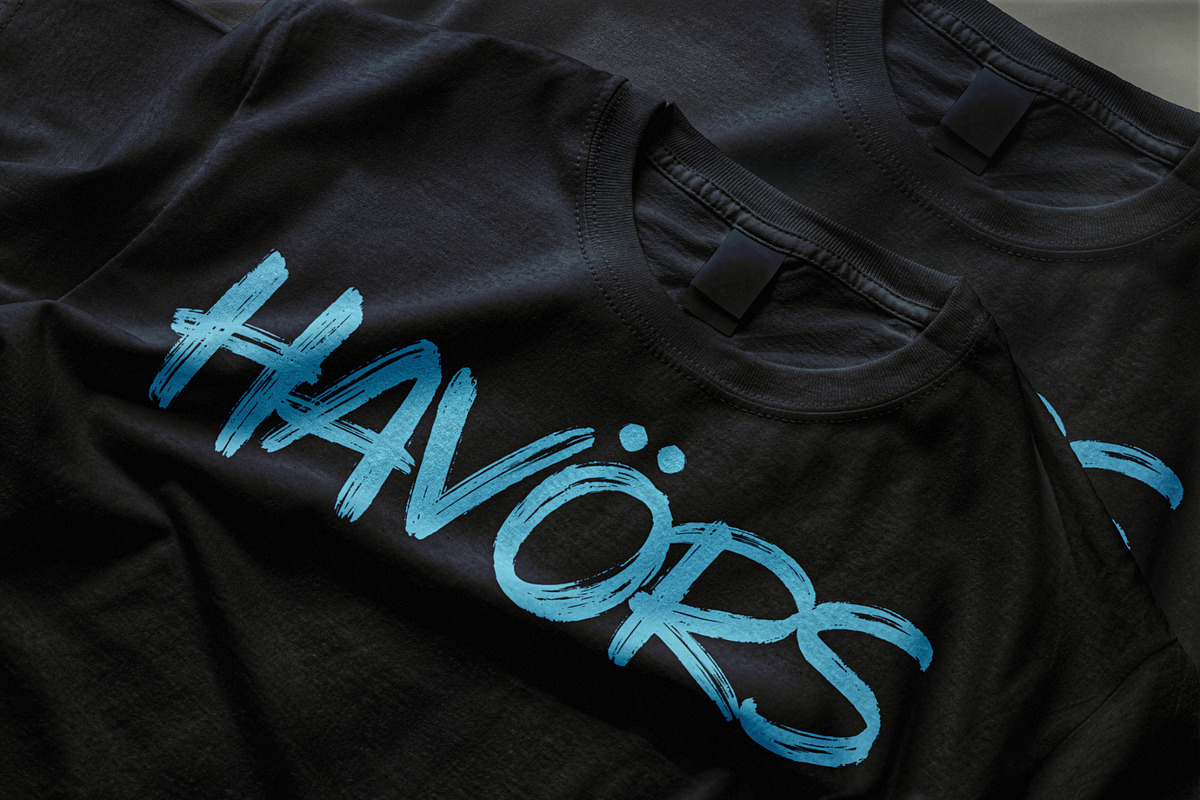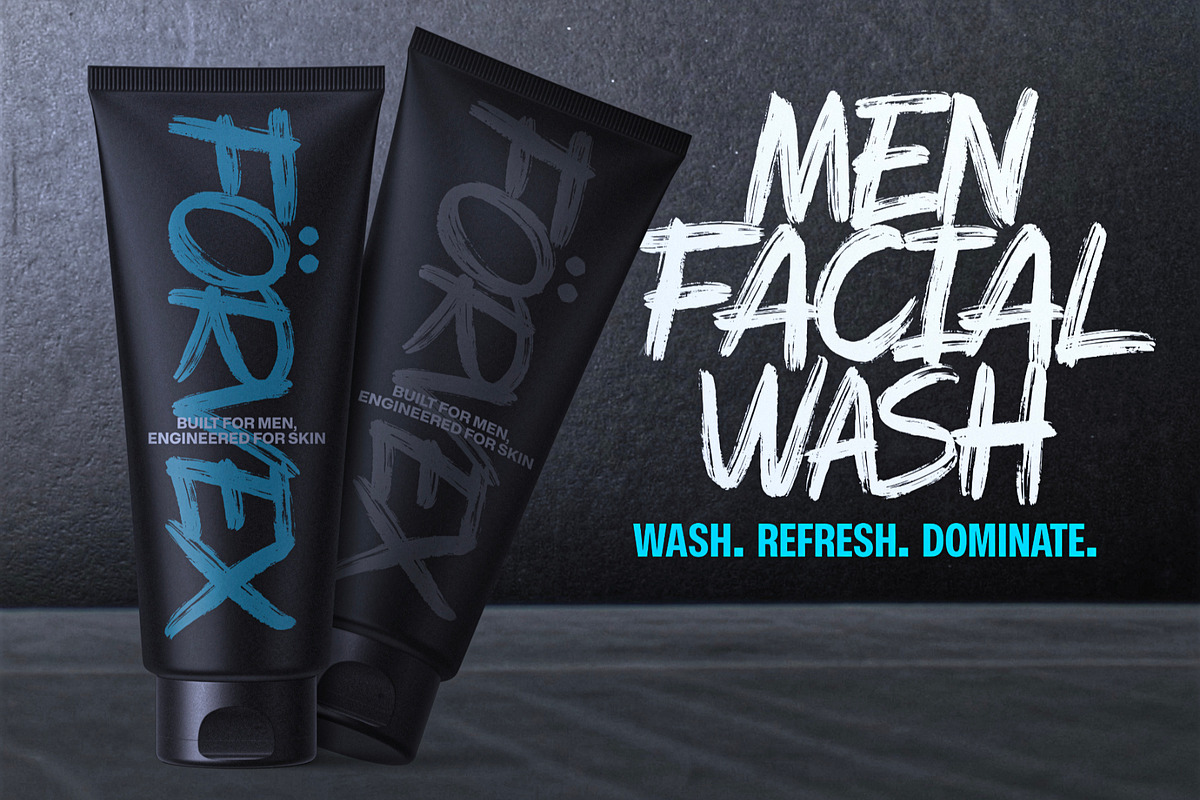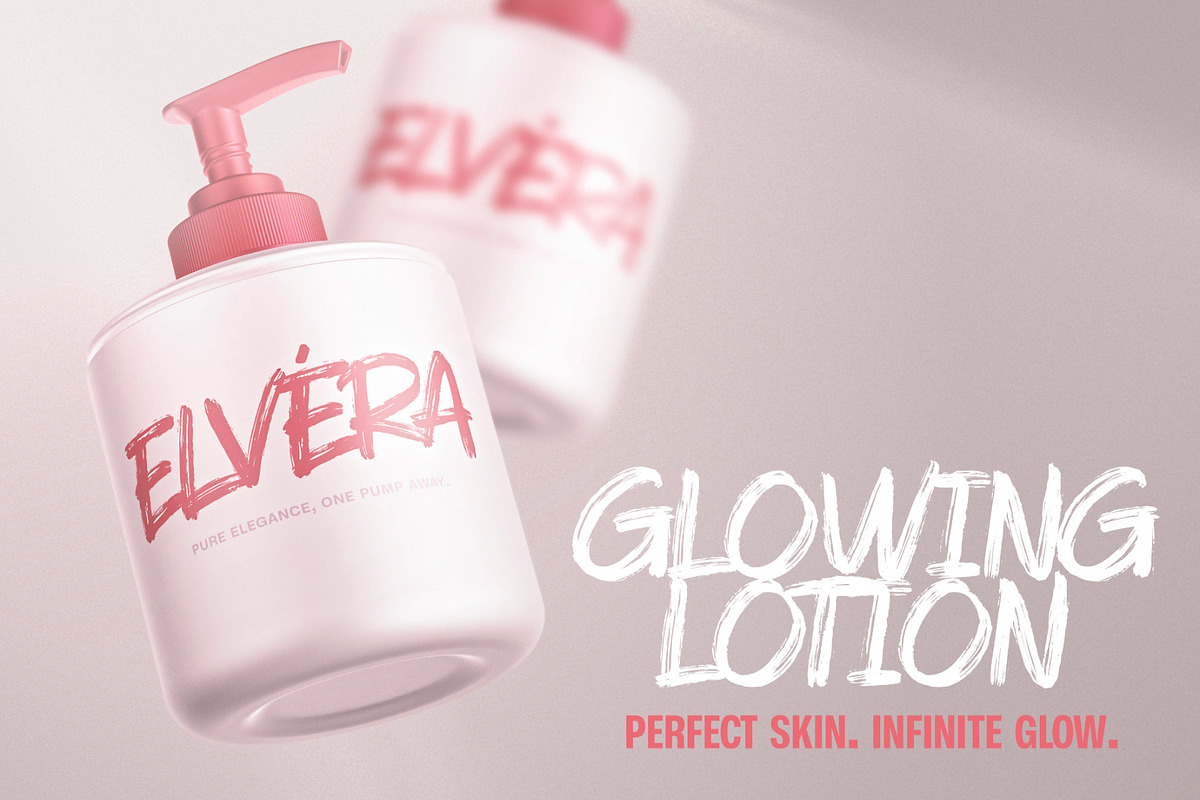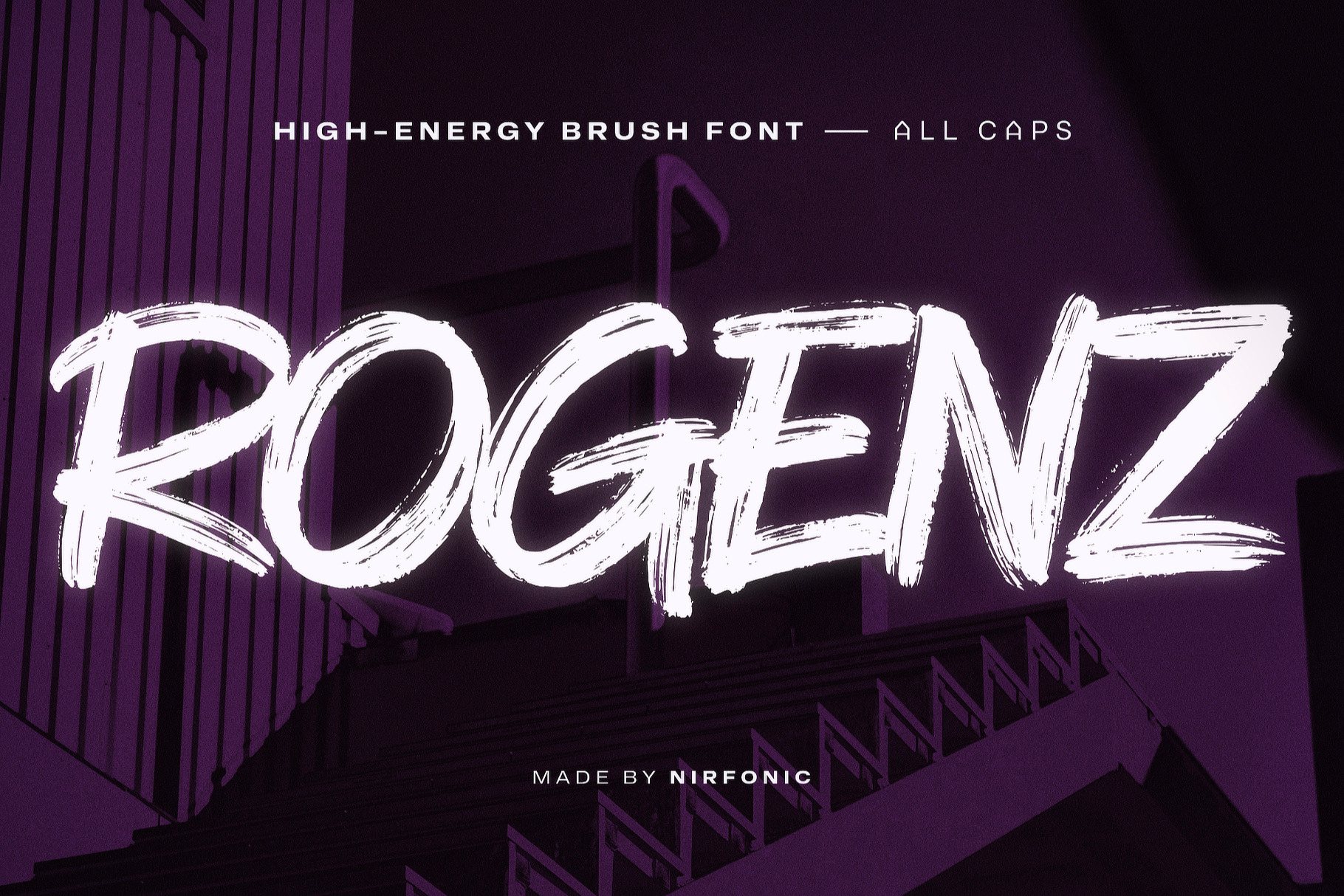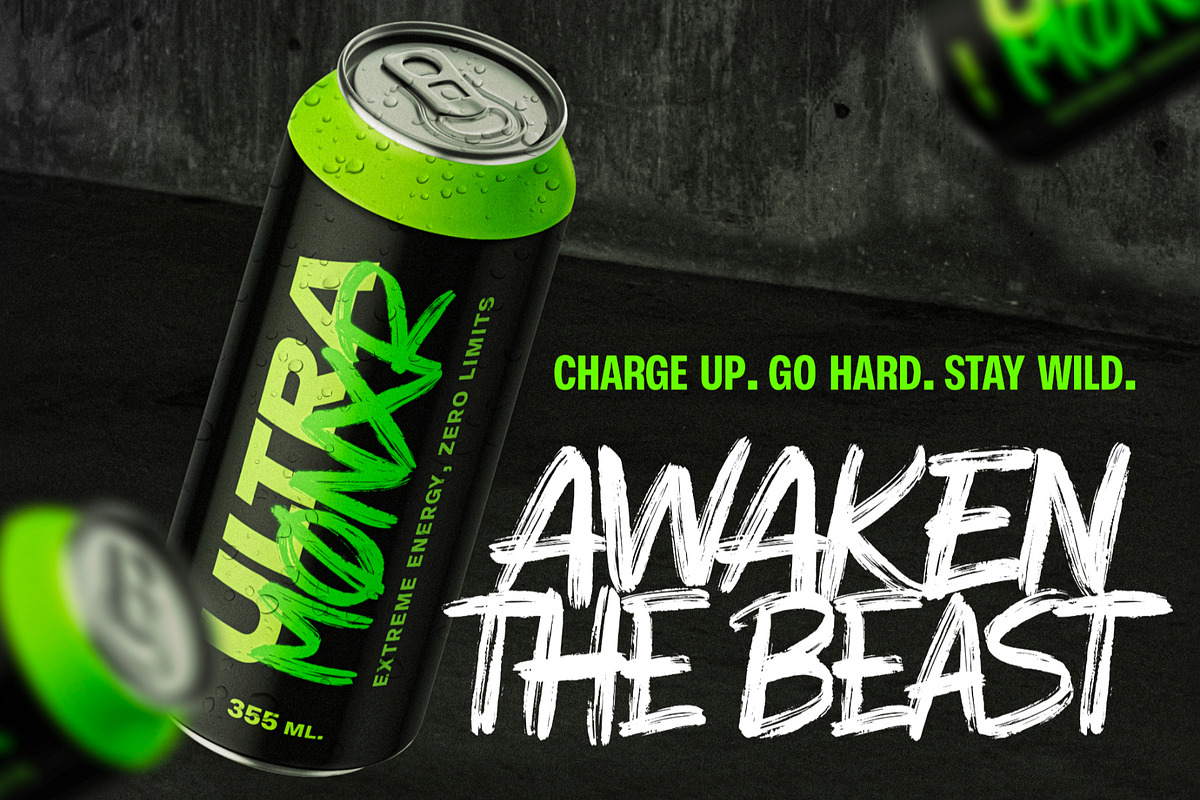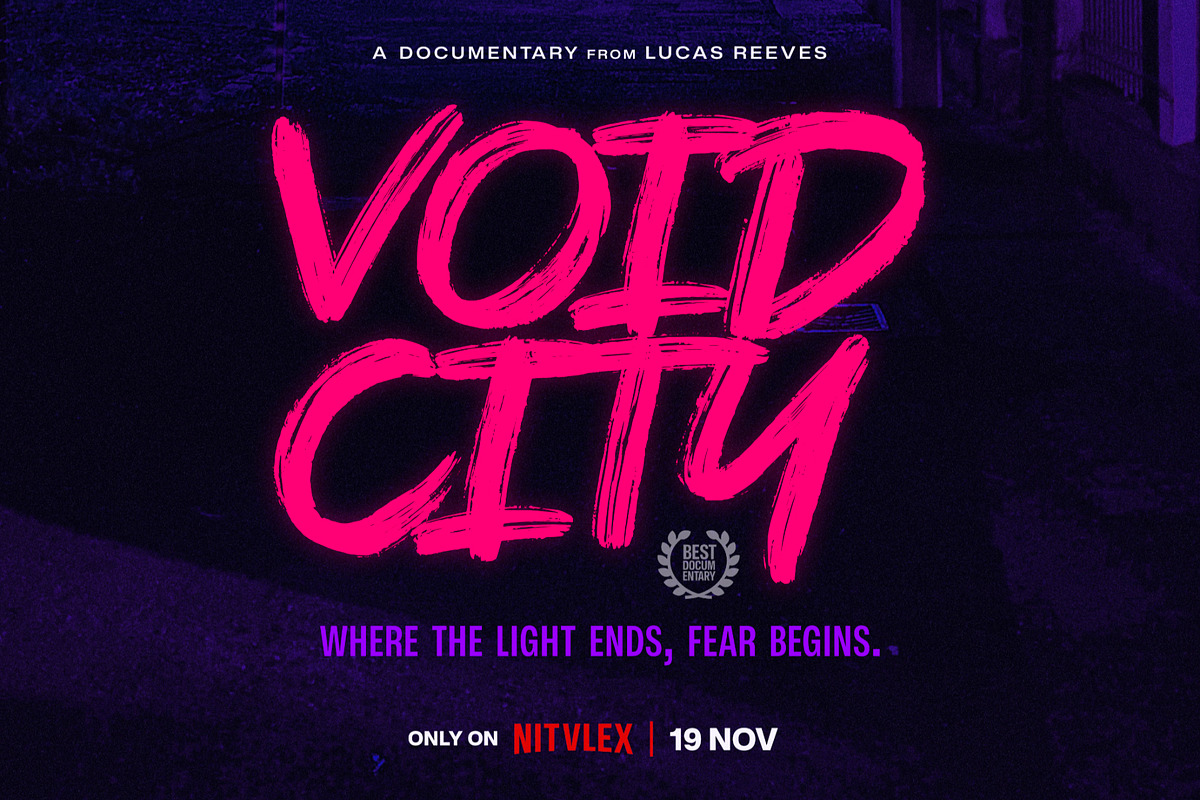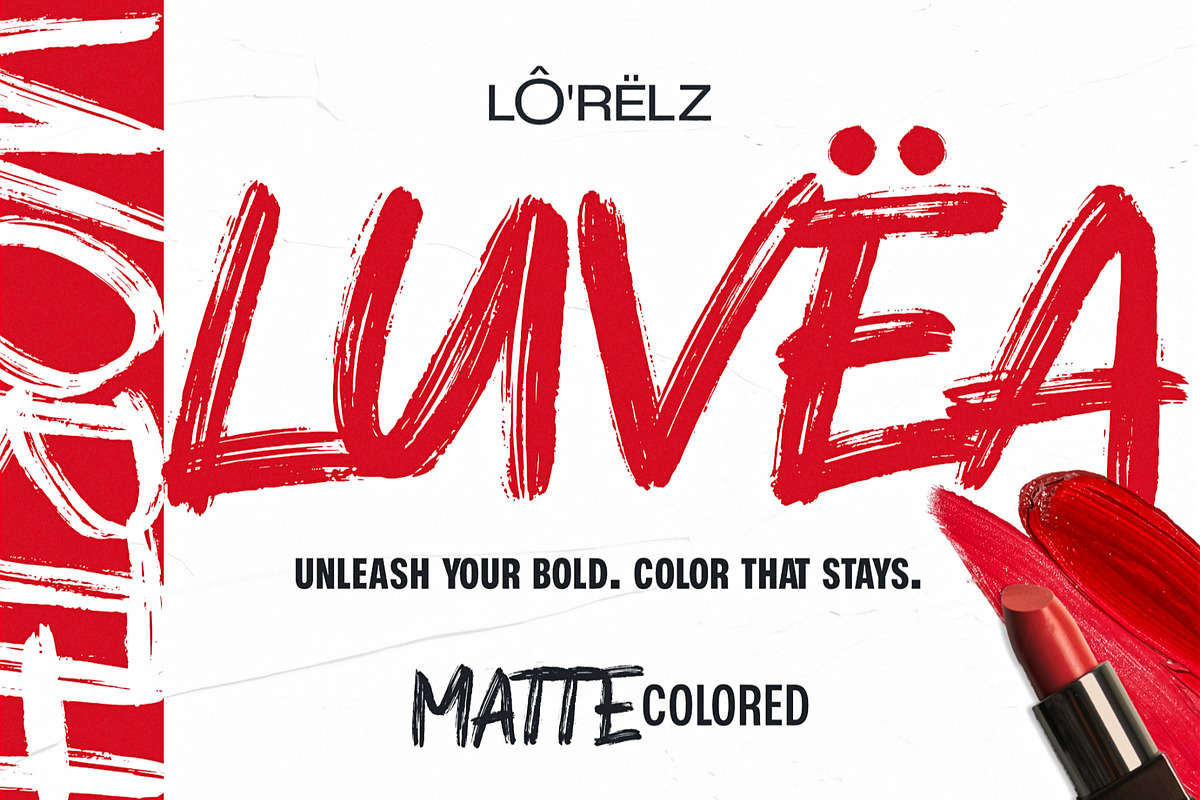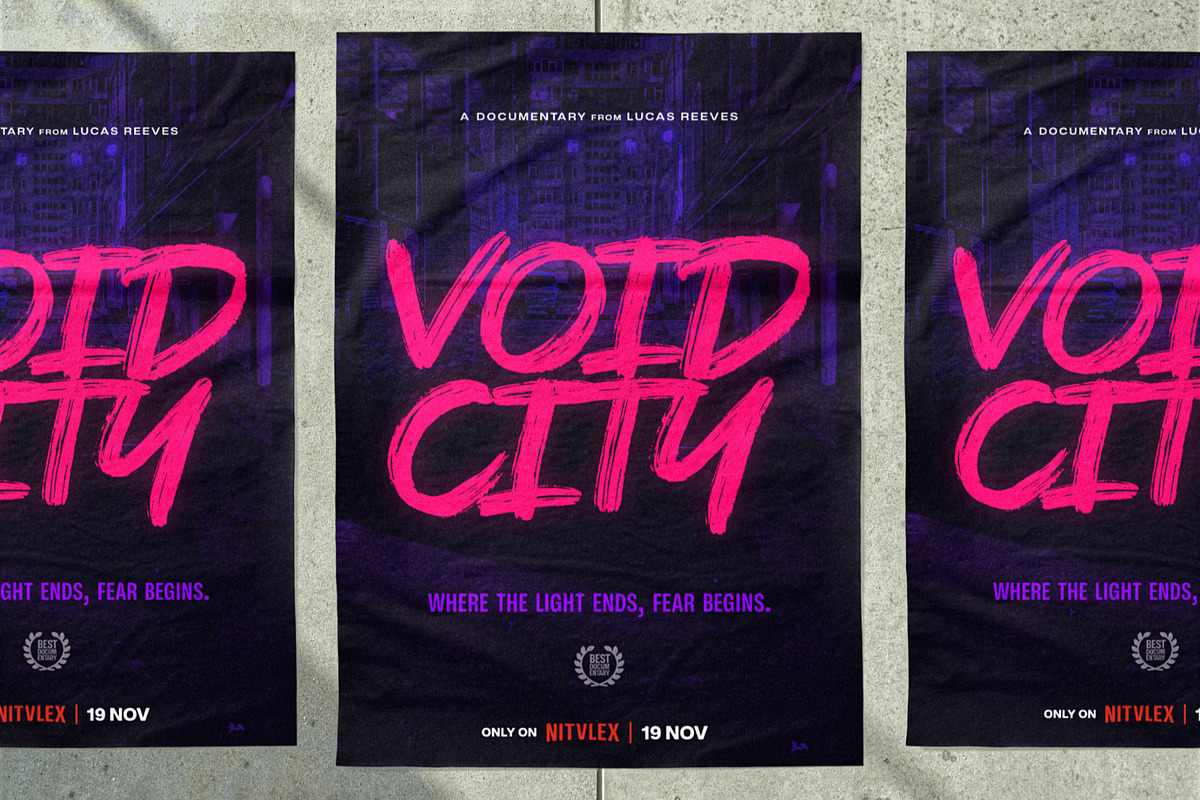
ROGENZ — High-Energy Brush Font
Introducing ROGENZ, the fearless, high-energy brush font that refuses to be ignored. Built for brands that lead, disrupt, and dominate, ROGENZ embodies the raw power of handcrafted brush strokes—bold, untamed, and electrifying.
Born for the Streets. Engineered for Impact. ROGENZ is more than just typography—it’s a statement of rebellion, crafted for creatives who dare to stand out. Whether you’re designing streetwear branding, gaming visuals, or extreme sports campaigns, this font is your secret weapon for unmissable designs.
Streetwear & Urban Branding → Elevate your apparel, logos & merch with raw street-style energy.
Esports & Gaming → Make your gaming brand, YouTube thumbnails & tournament posters explode with intensity.
Extreme Sports & Adventure → Capture the spirit of speed, adrenaline, and fearless performance.
Entertainment → Event posters & film/movie titles with grunge aesthetics.
Cosmetics & Alternative Beauty → Ideal for bold lipstick, edgy skincare & rebellious beauty campaigns.
Why ROGENZ?
Electrifying Brush Strokes – A handcrafted fusion of raw power & authentic texture.
Bold Yet Legible – Striking typography that remains clear & impactful.
High Versatility – Dominates across fashion, gaming, entertainment, and branding.
Designed to Sell – A proven attention-grabber for brands looking to convert views into action.
100% Original & Unique – No two strokes are alike—ROGENZ is one of a kind.
Fearless. Bold. Unstoppable.
If your brand isn’t afraid to break the rules, ROGENZ is the only font that speaks your language.
Unique Selling Points (USP):
Handcrafted, high-energy brush strokes for a wild, rebellious, and fearless impact.
Striking versatility—from gaming & streetwear to action-packed event posters.
Unapologetically bold—delivers maximum impact without sacrificing readability.
Built for next-gen branding—trendy, aggressive, and designed for high-performance creatives.
Perfect for statement-making designs—because blending in is never an option.